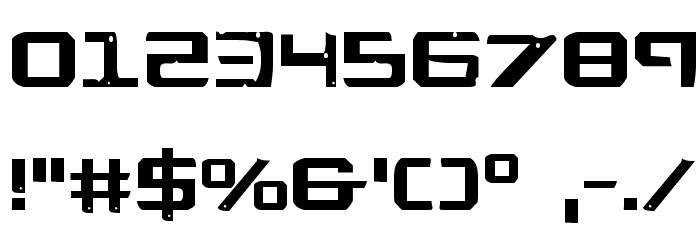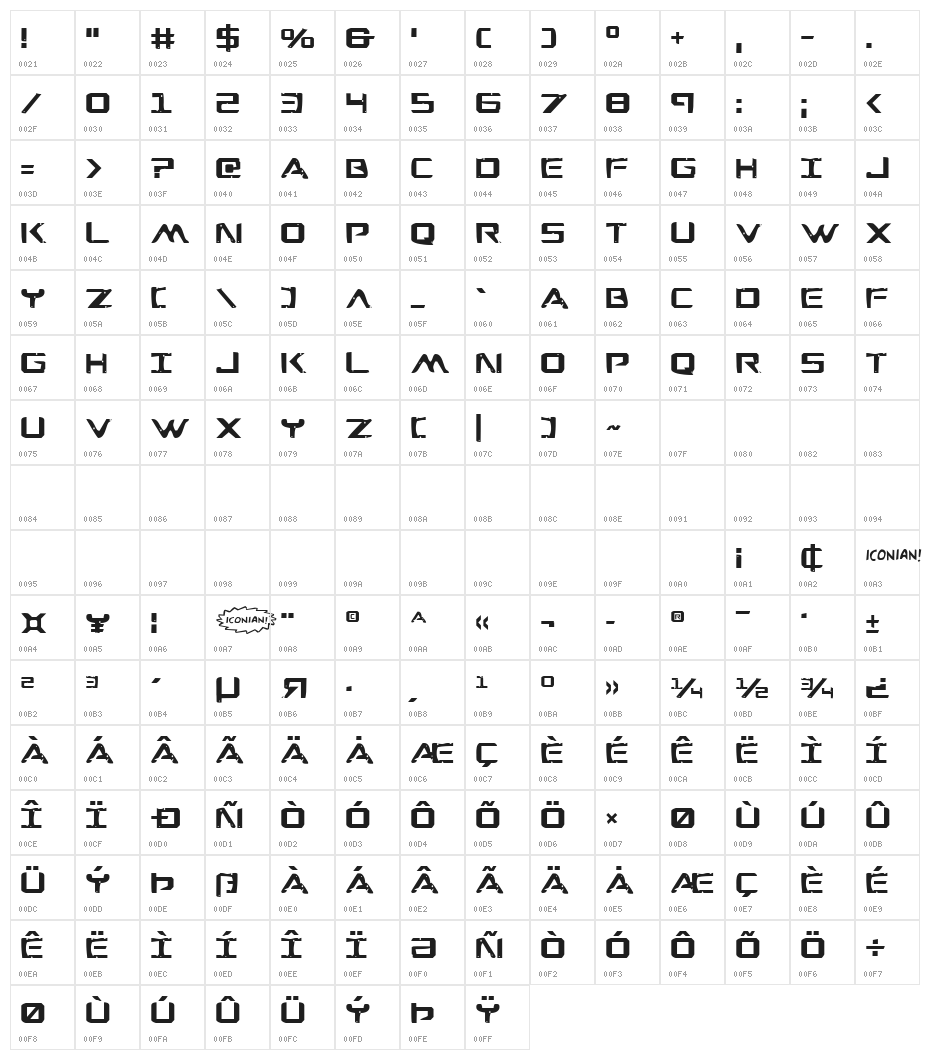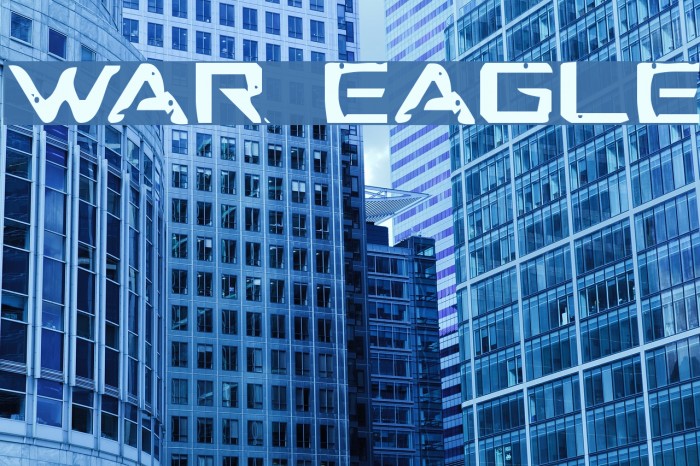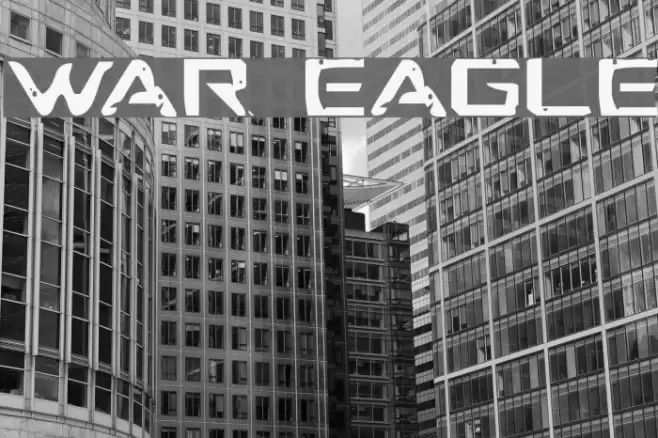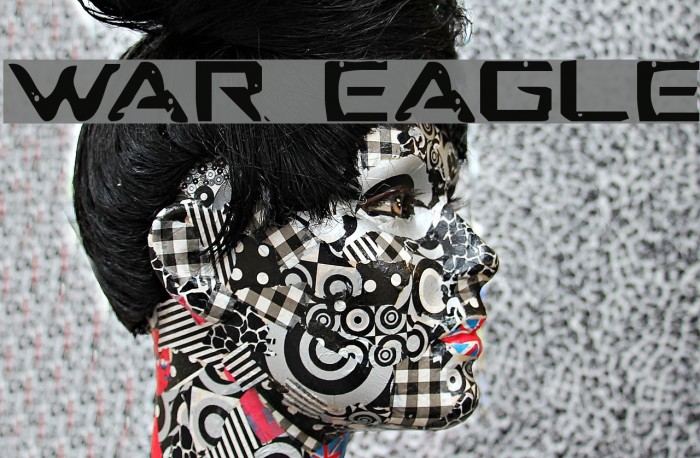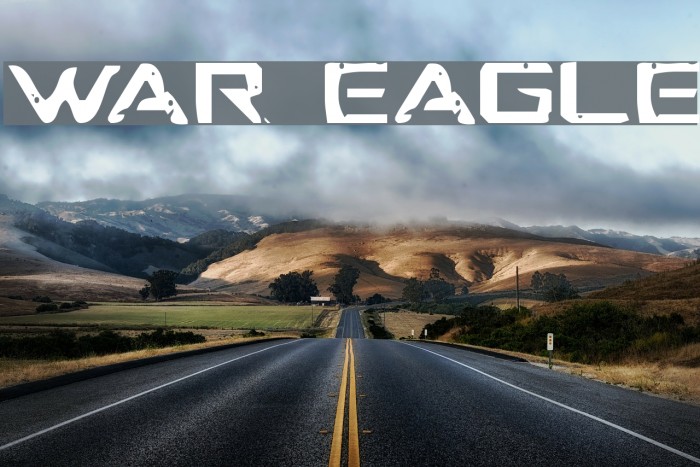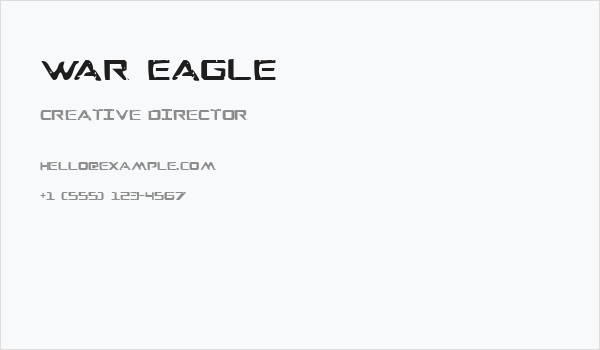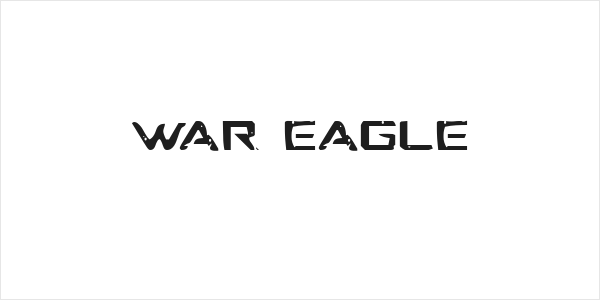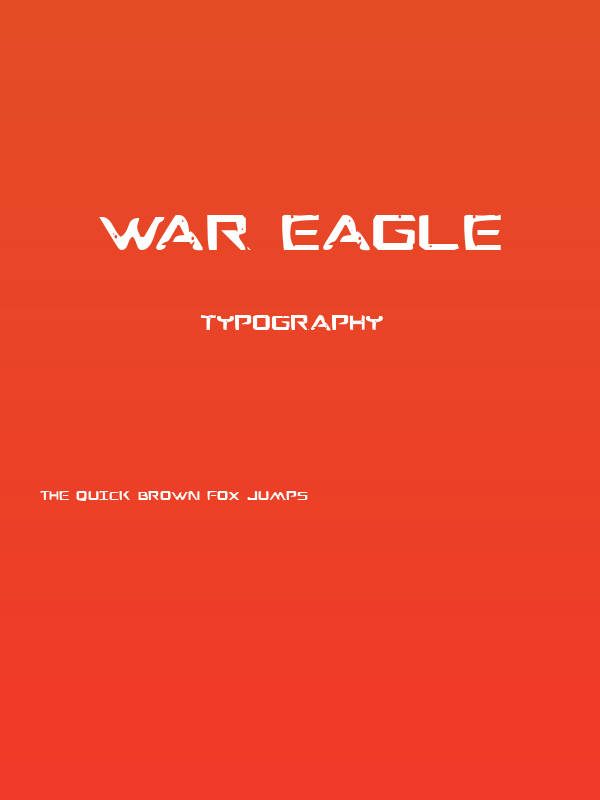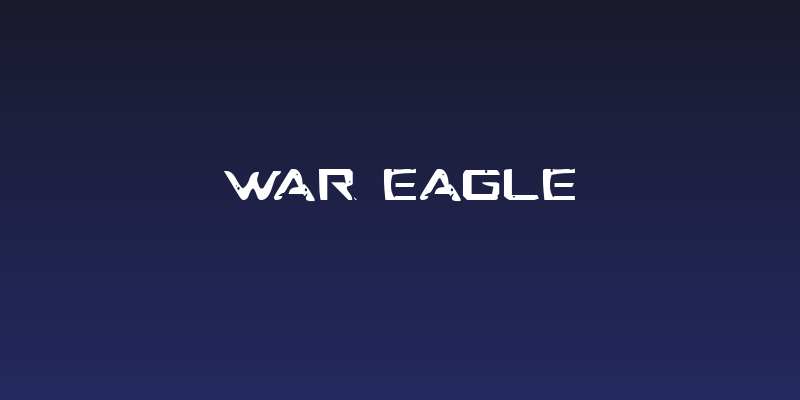
War Eagle Font
War Eagle Description
This font features a bold, industrial design with a distressed, grunge-like appearance. The characters are angular and geometric, with a unique stencil-like quality that gives it a rugged, mechanical feel. The uppercase and lowercase letters maintain a consistent style, with sharp edges and a slightly condensed form. Numbers and special characters follow the same aesthetic, making the font versatile for various uses. The overall look is modern and edgy, suitable for projects that require a strong, impactful visual presence.
WAR-EAGLE UPPERCASE
WAR-EAGLE LOWERCASE
WAR-EAGLE OTHER CHARS
| Overall Style | Modern, Industrial |
| Proposed Projects | Ideal for branding, posters, video game graphics, and any project needing a strong, industrial aesthetic. |